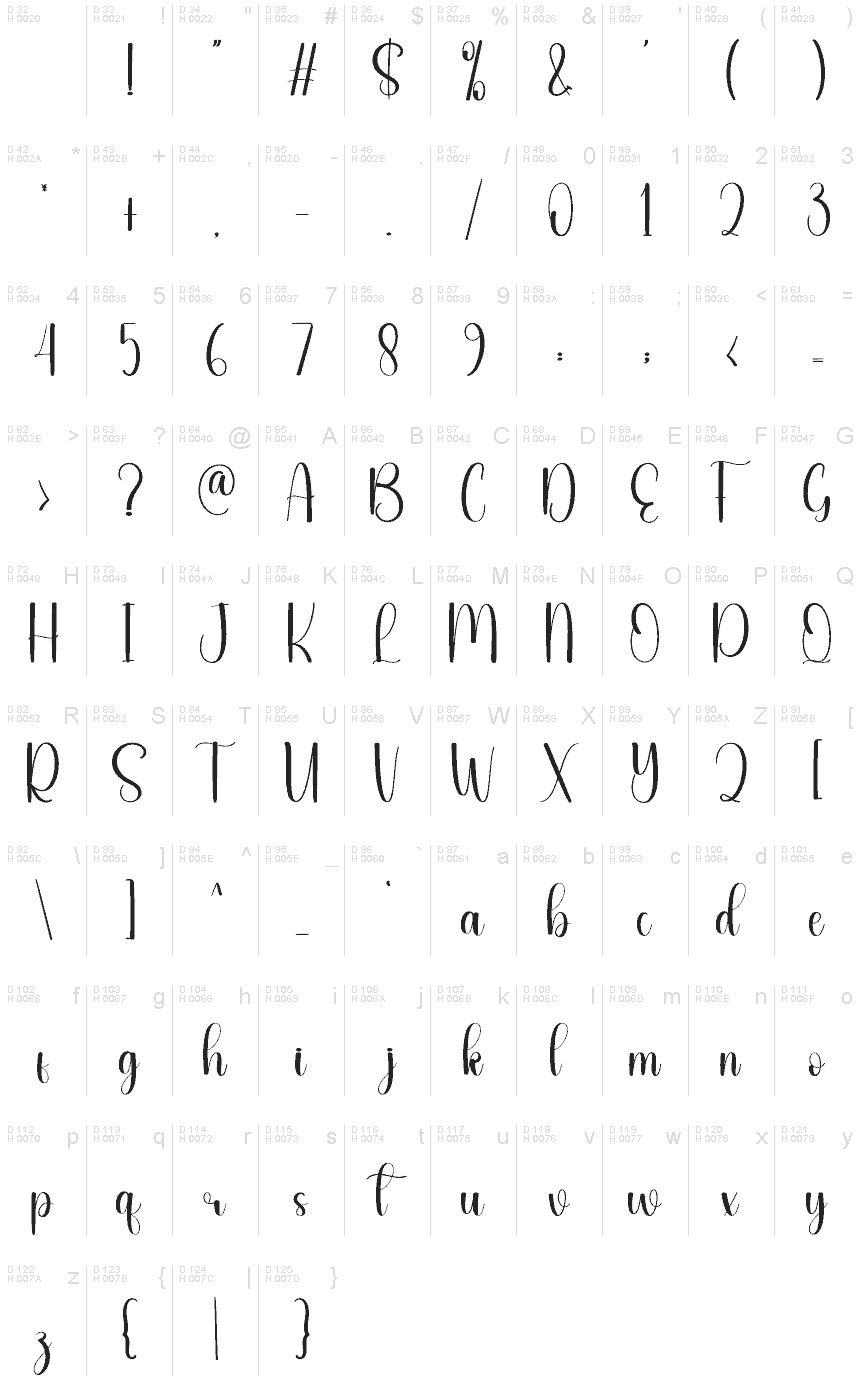
Shindy
Shindy font is a calligraphy piece created by Andi Moz in an elegant and refined style. Its flowing letters have graceful curves and artistic flair, creating a contemporary script worthy of adding luxury to any of your designs. The natural simplicity that this free calligraphy font introduces makes it functional for all users who hope to create effortlessly.
Suitable platforms include social media channels like Instagram and Pinterest (brand development, artwork/illustrations), online shops and shopping applications (subtitles), magazines, books or recipe books titles, posters for cosmetics/skincare fashion brands, shop/restaurant signs/logos; and CDs and video games covers.